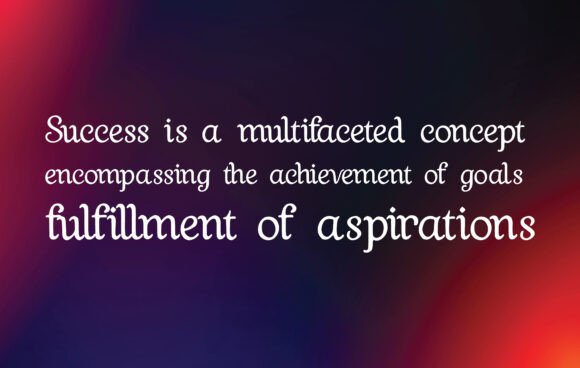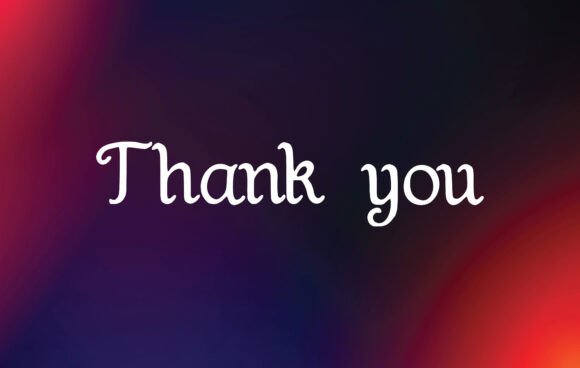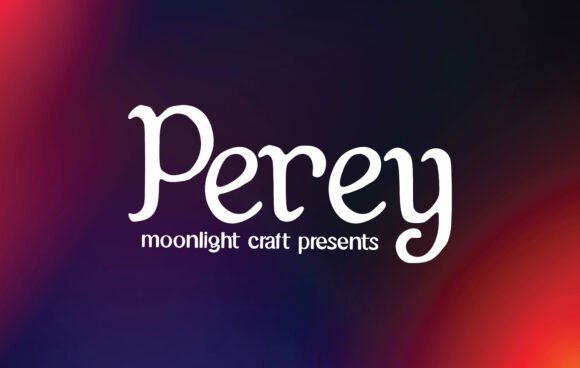
Introduction to Perey Font
Perey is a lovely and beautiful handwritten font.
Key Features of Perey Font
Why Choose Perey Font?
Perey Font offers exceptional quality and versatility, making it a valuable addition to your design toolkit. Whether you’re creating for personal projects or commercial use, Perey Font delivers professional results.